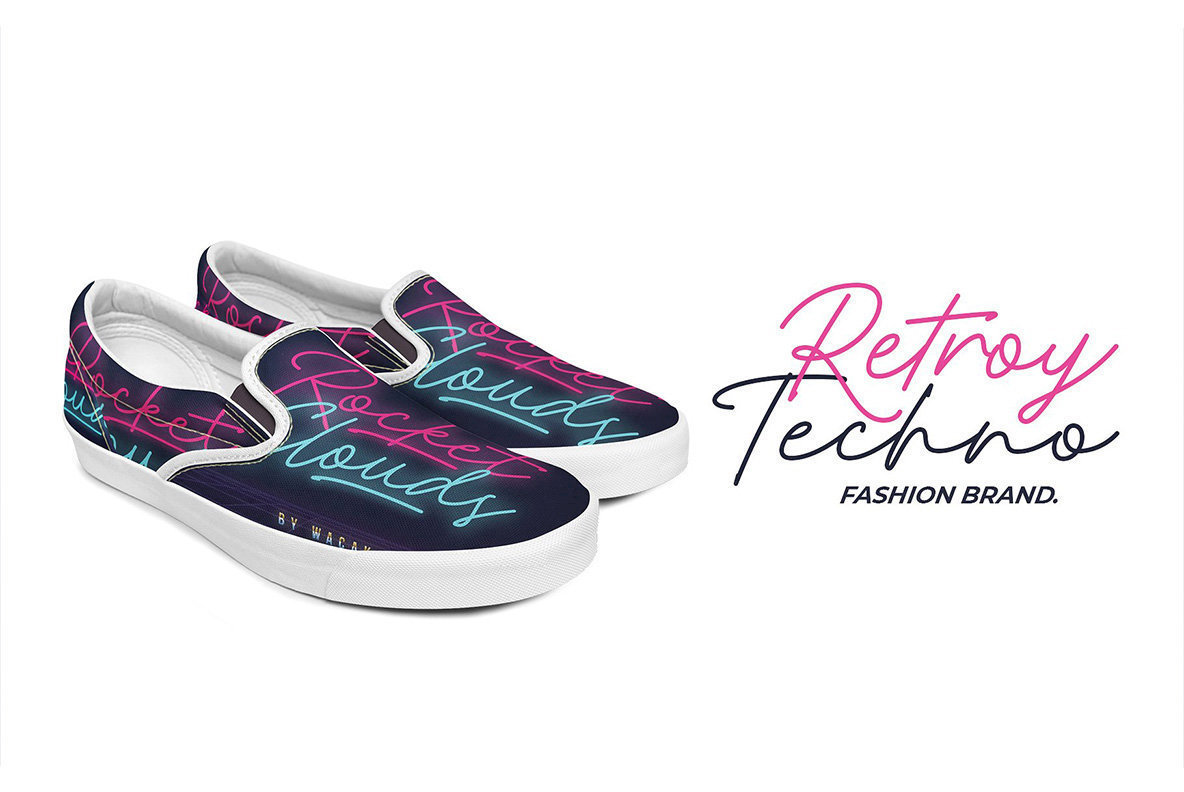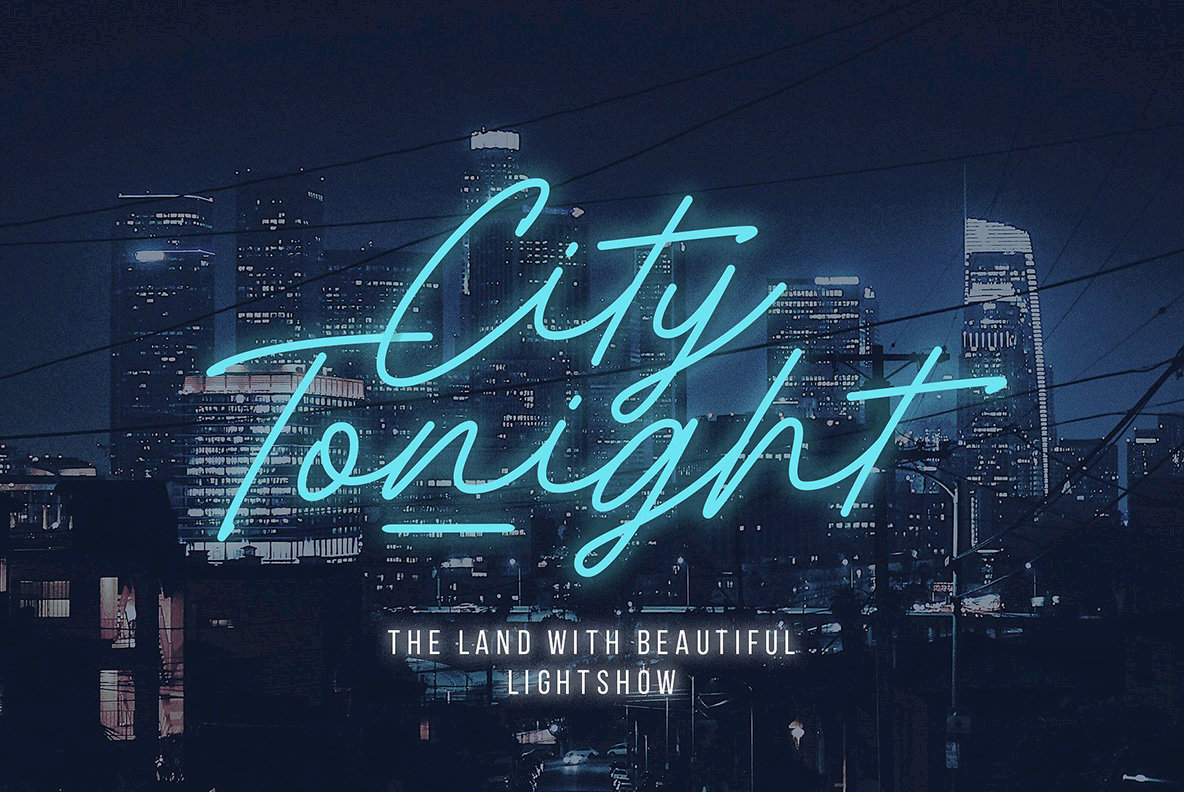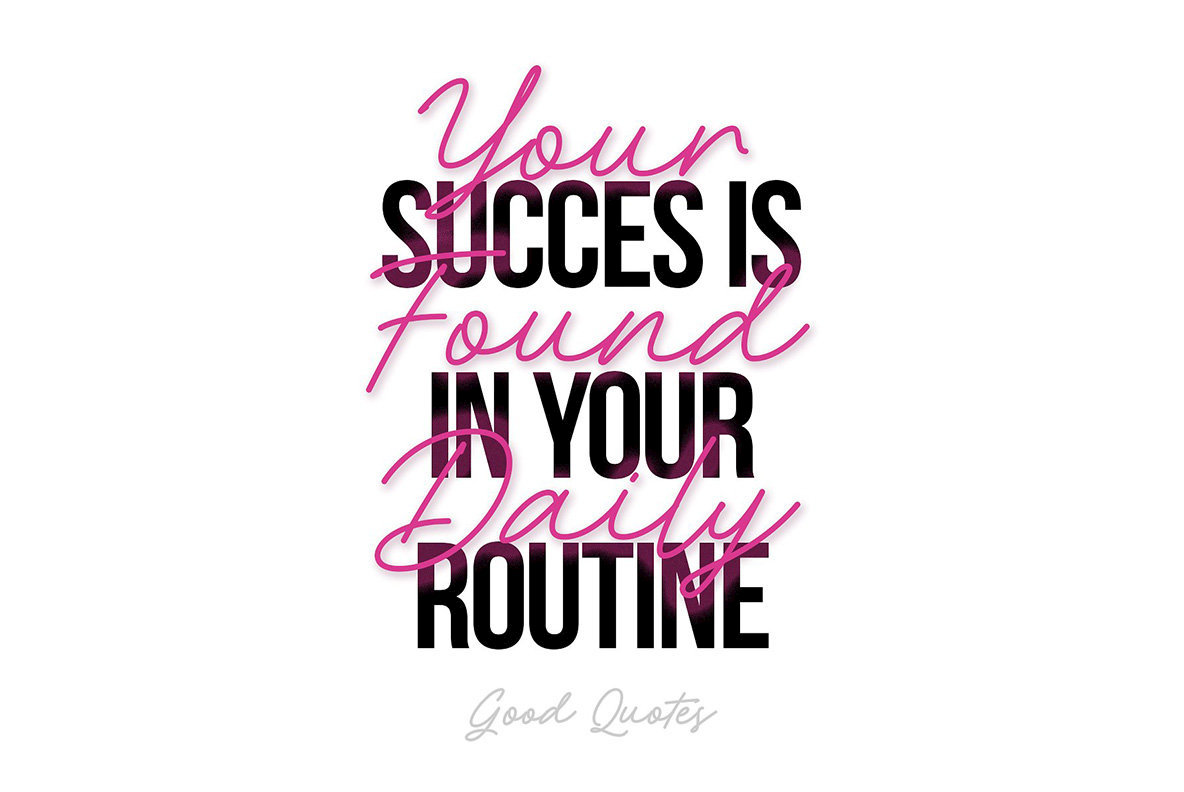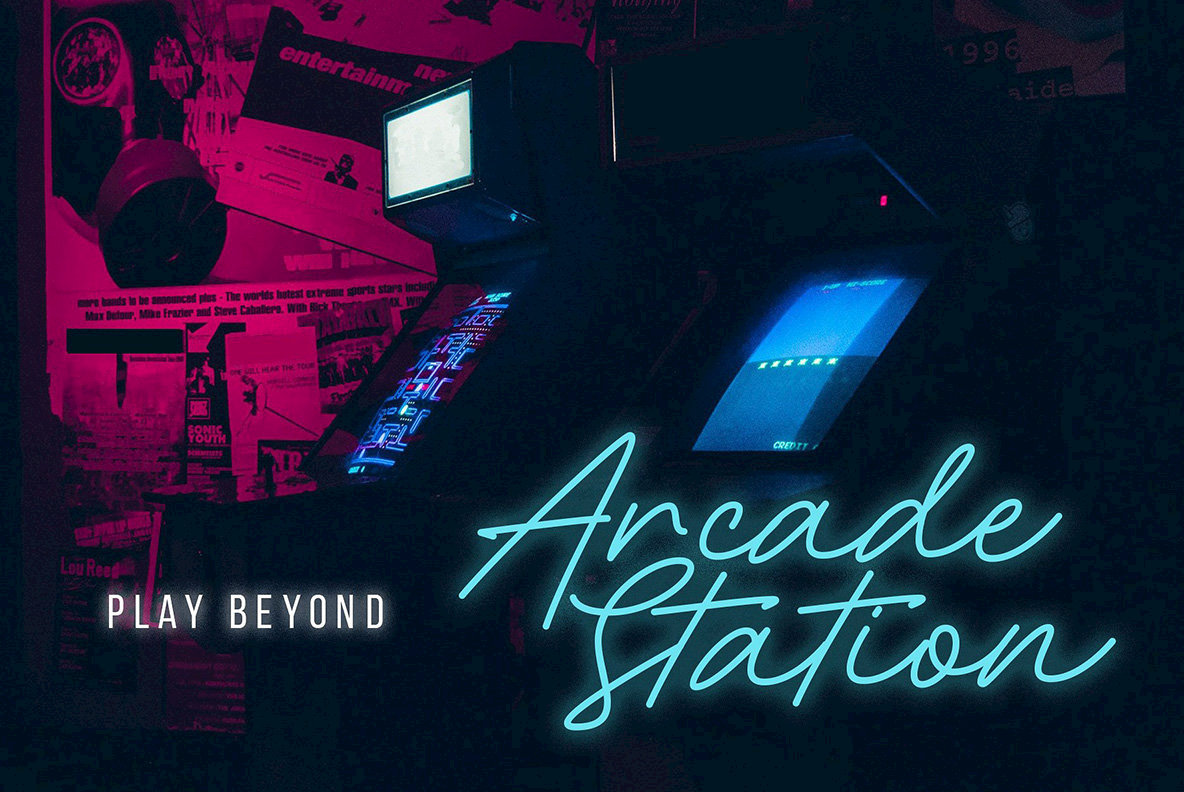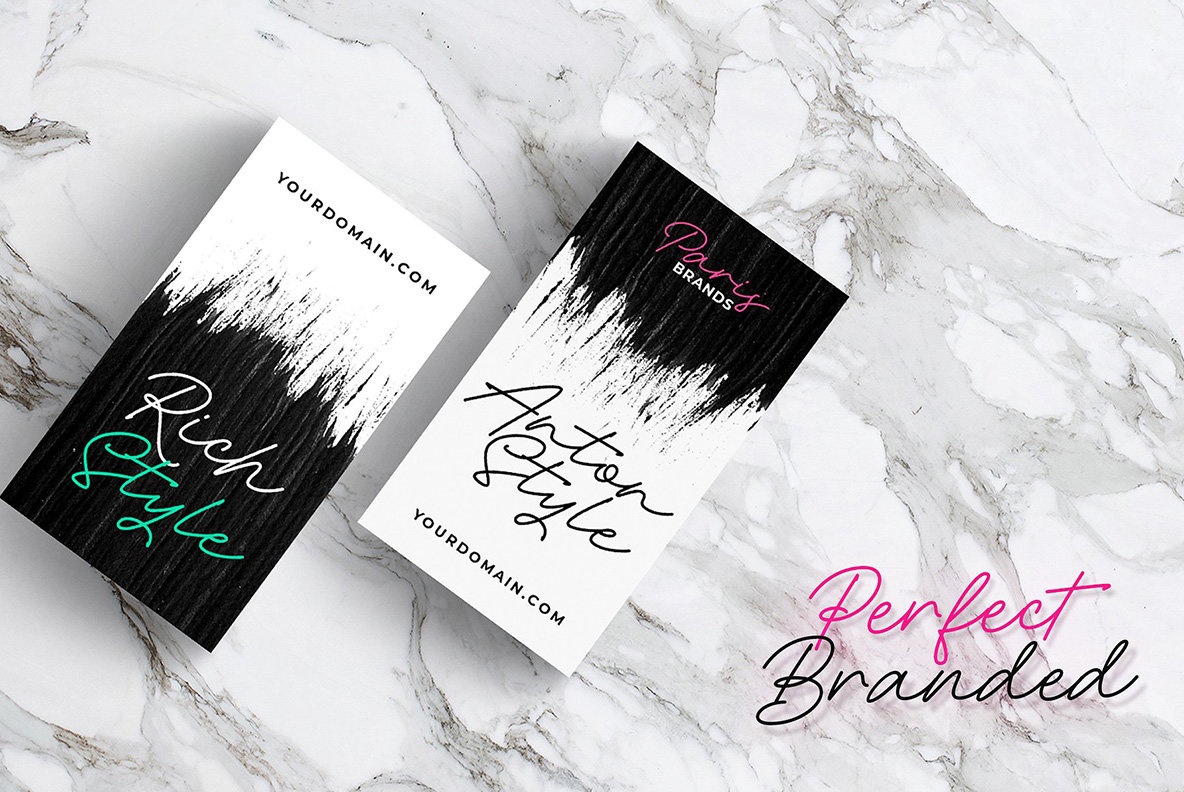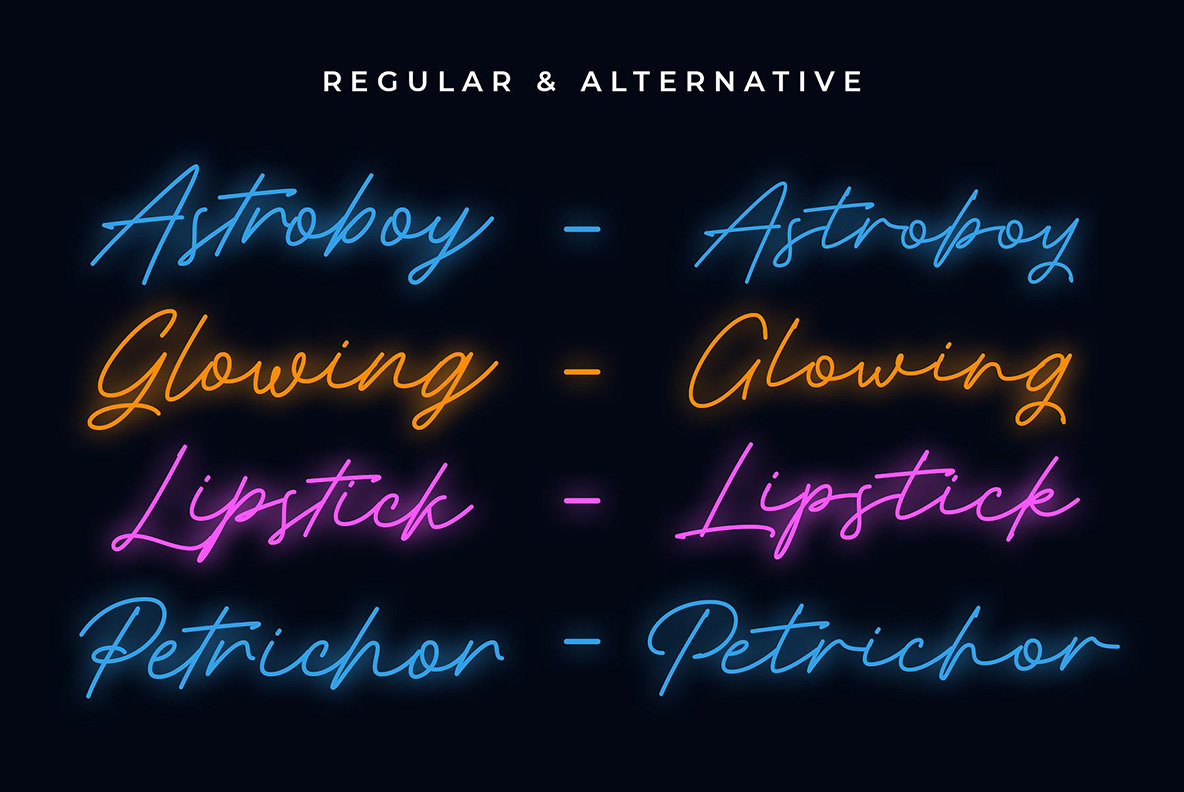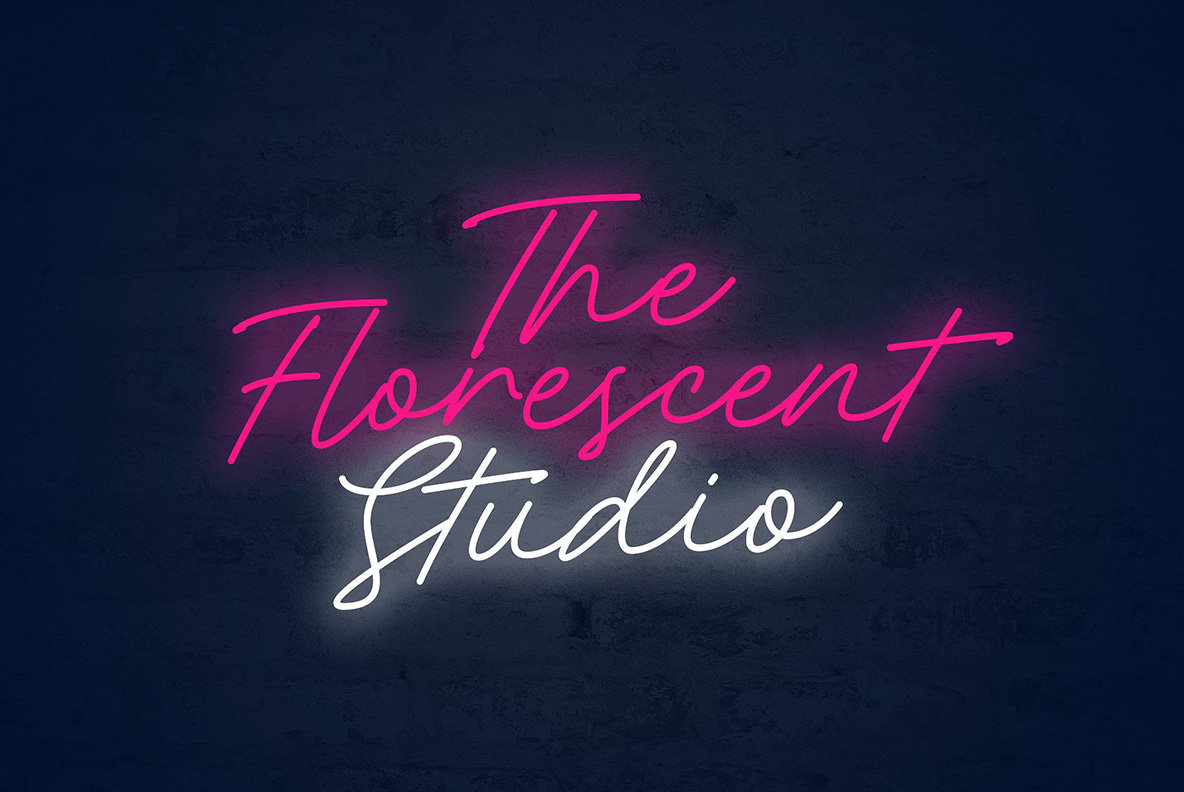
Rocket Clouds Font
Rocket Clouds
Rocket Clouds Alt
Introducing our new font called Rocket Clouds, inspired by 1980’s music and neon lights — a contemporary take on retro stylings, this two-font duo will bring your designs to life with an infusion of boisterous nostalgia.
Great for use in labels, branding, packaging, or text overlay to any background picture, Rocket Clouds will make a gorgeous addition to your type library!
Rocket Clouds comes with two styles Rocket Clouds Regular and Rocket Clouds Alt that you can play and paired at the same time and this will make you not boring anymore.